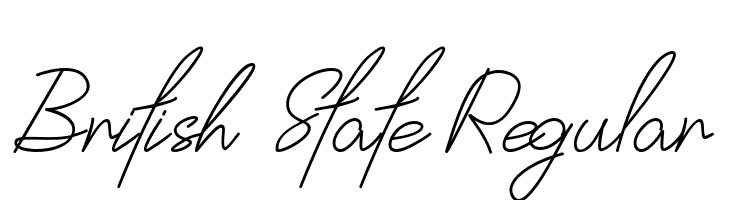
A flowing, cursive font with elegant, interconnected letters and a handwritten style.
A bold, expressive handwritten font with fluid strokes and a modern vibe.
A playful, handwritten font with a casual and whimsical style.
A bold, expressive script font with a handwritten style.
A bold, expressive script font with fluid, interconnected strokes.
A decorative script font with elegant swirls and flourishes.
An elegant, cursive font with a flowing, handwritten style.
A lively, expressive script font with flowing cursive letters.
A lively, expressive handwritten font with dynamic strokes and playful character.